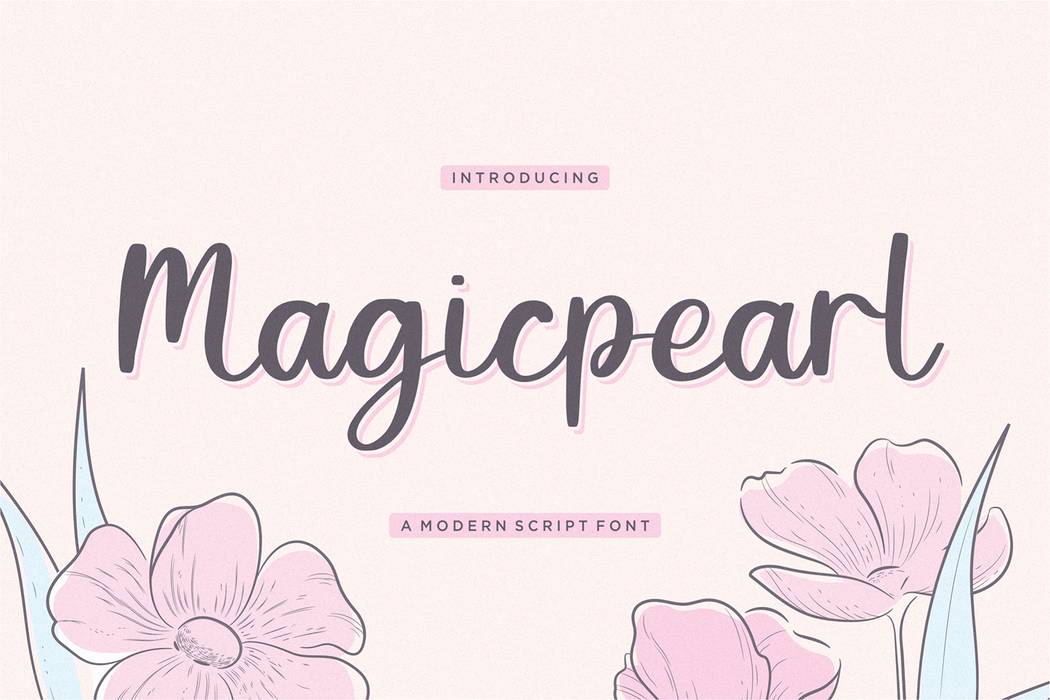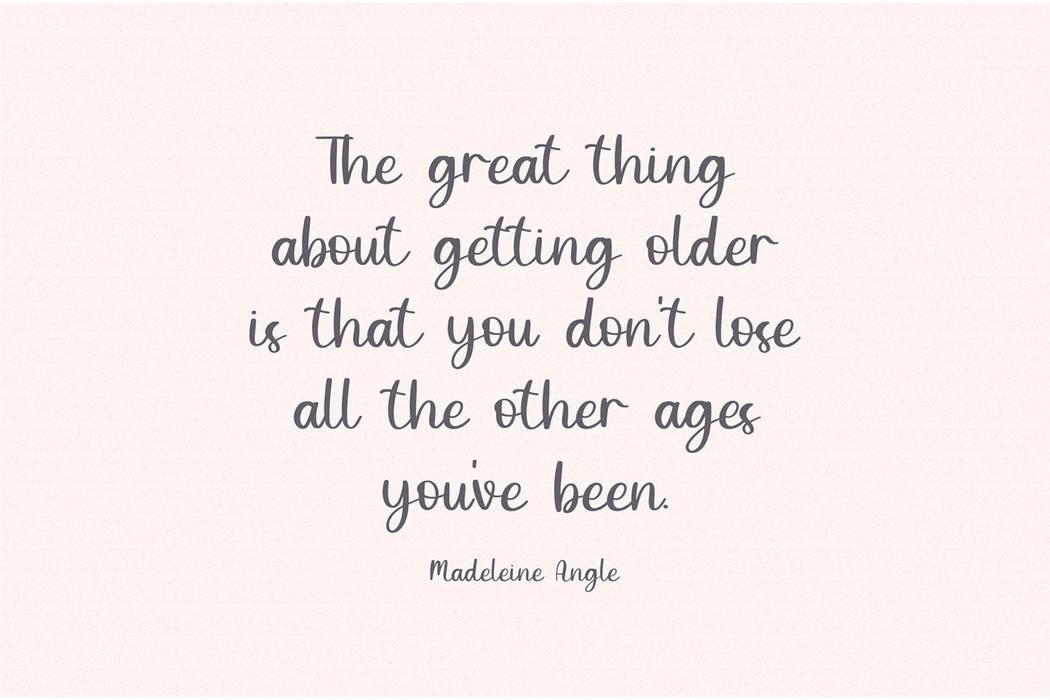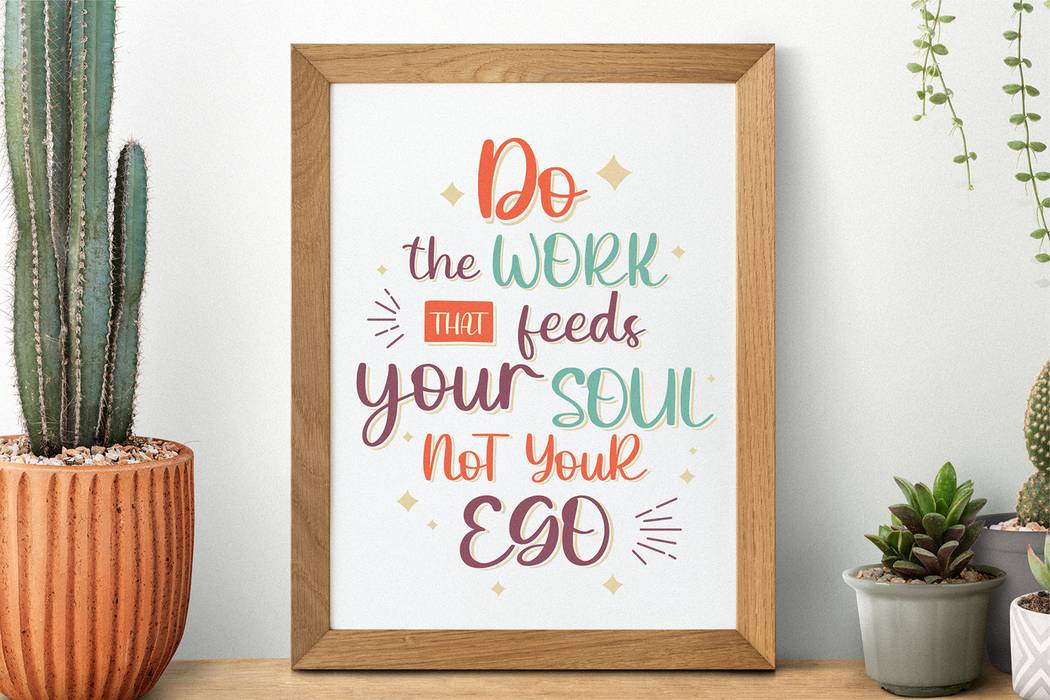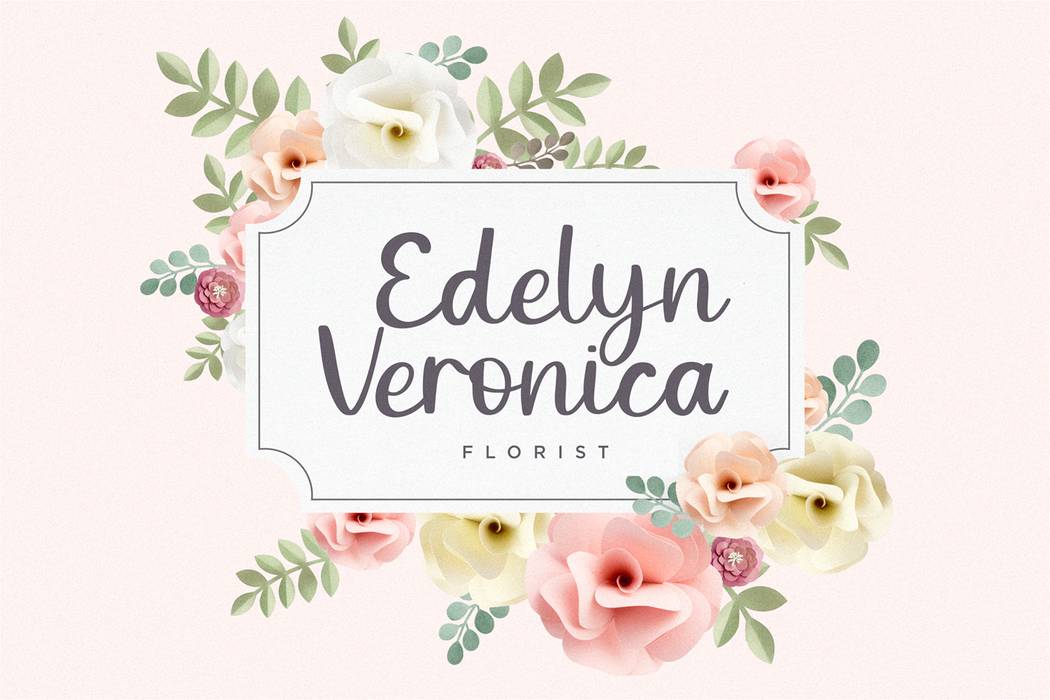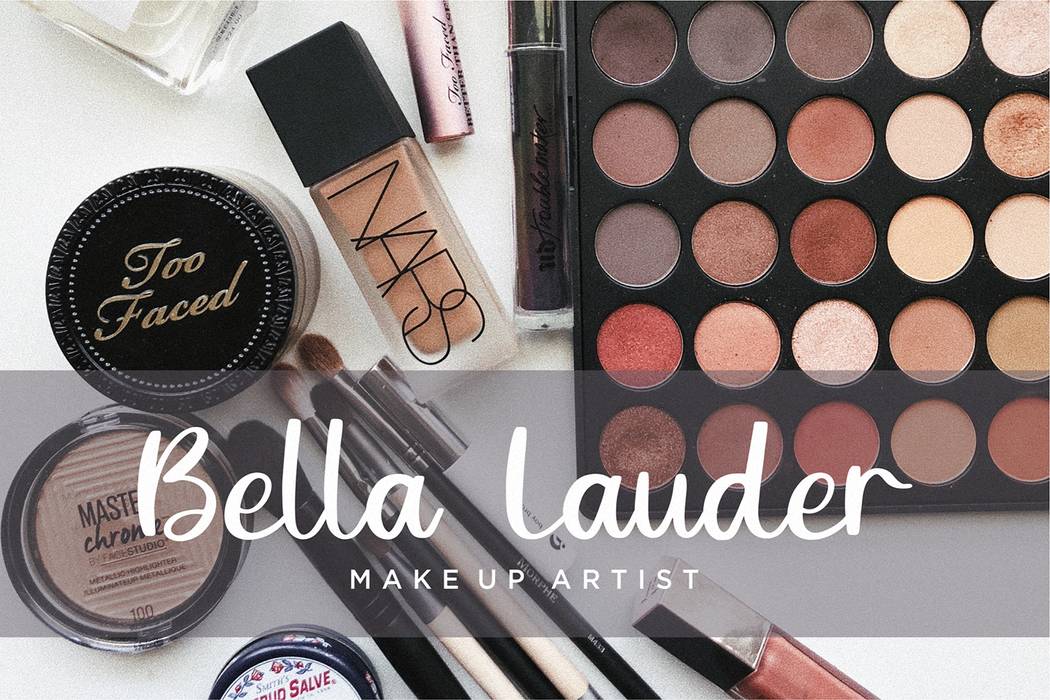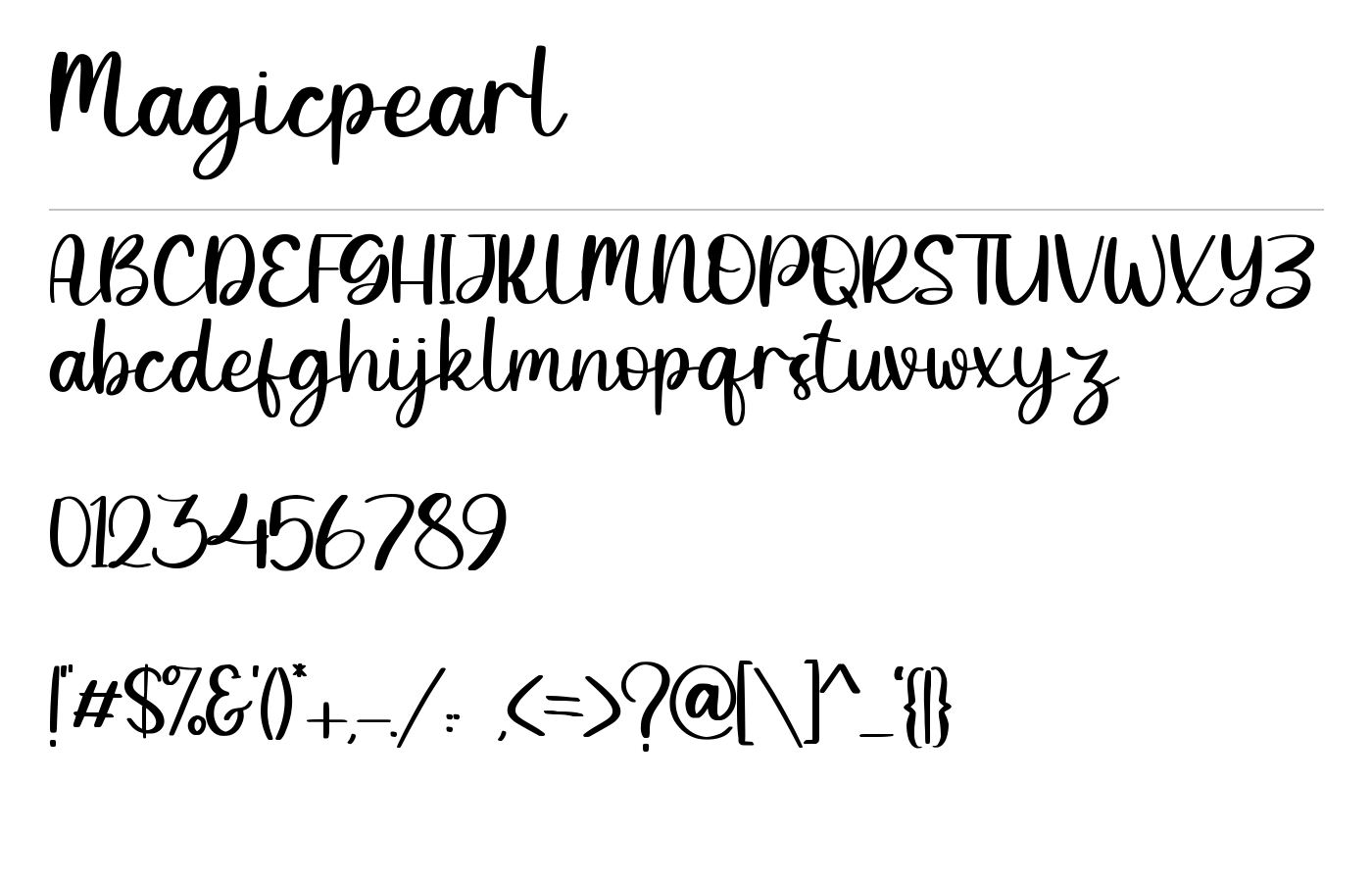
Magicpearl is a playful and elegant script font with a hand-drawn feel, featuring smooth, rounded strokes and a moderate contrast that creates a friendly yet refined appearance. Its tall x-height and flowing letterforms make it ideal for adding a personal, creative touch to branding, invitations, and casual editorial designs. This font works wonderfully where a warm, approachable style is desired, balancing readability with artistic flair.
Magicpearl Font